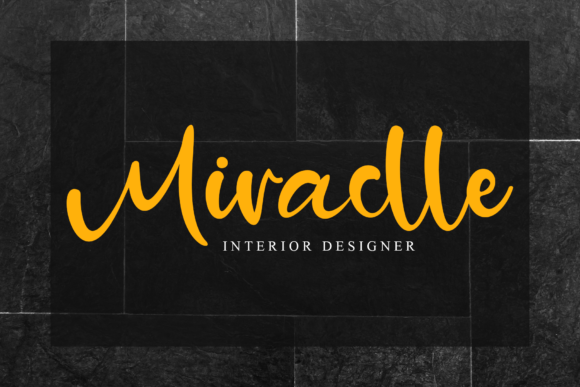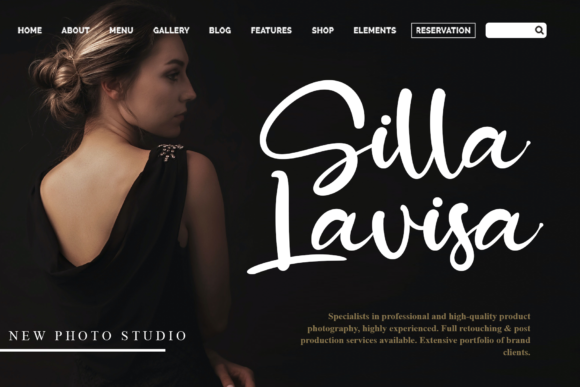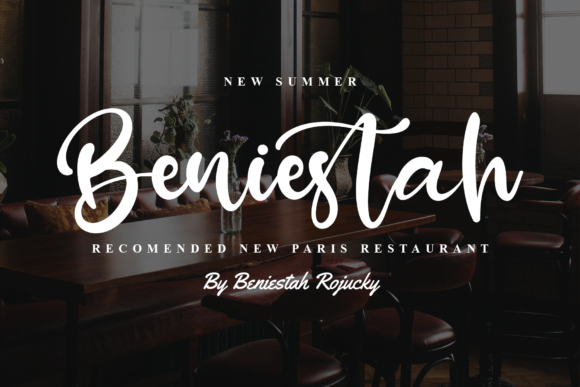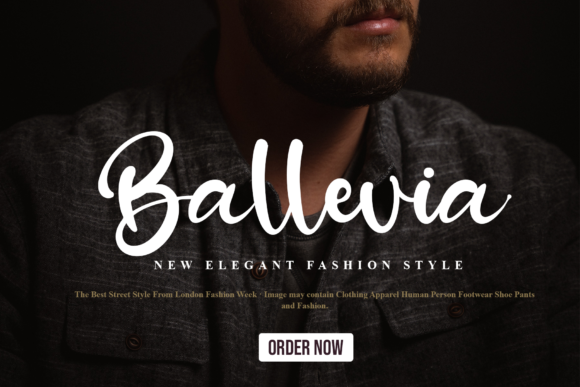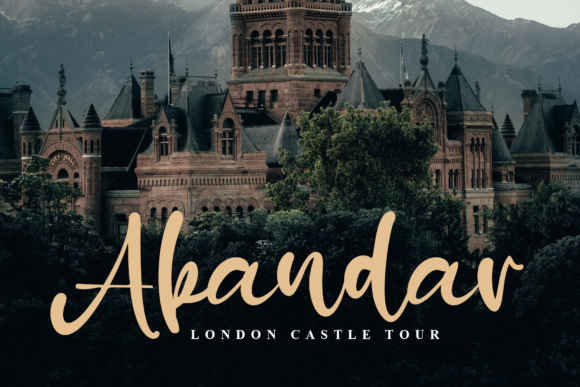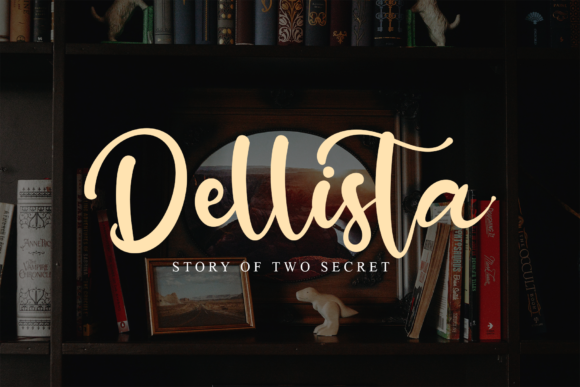
Moreen Maira Font – Free Download
Introduction to Moreen Maira Font
Moreen Maira is a relaxed, stylish and delicate script font.
Adaptable yet luxurious, this font fits a wide pool of designs, elevating them to the highest levels Add this font to your favorite creative ideas and notice how it makes them come alive.
Key Features of Moreen Maira Font
Why Choose Moreen Maira Font?
Moreen Maira Font offers exceptional quality and versatility, making it a valuable addition to your design toolkit. Whether you’re creating for personal projects or commercial use, Moreen Maira Font delivers professional results.